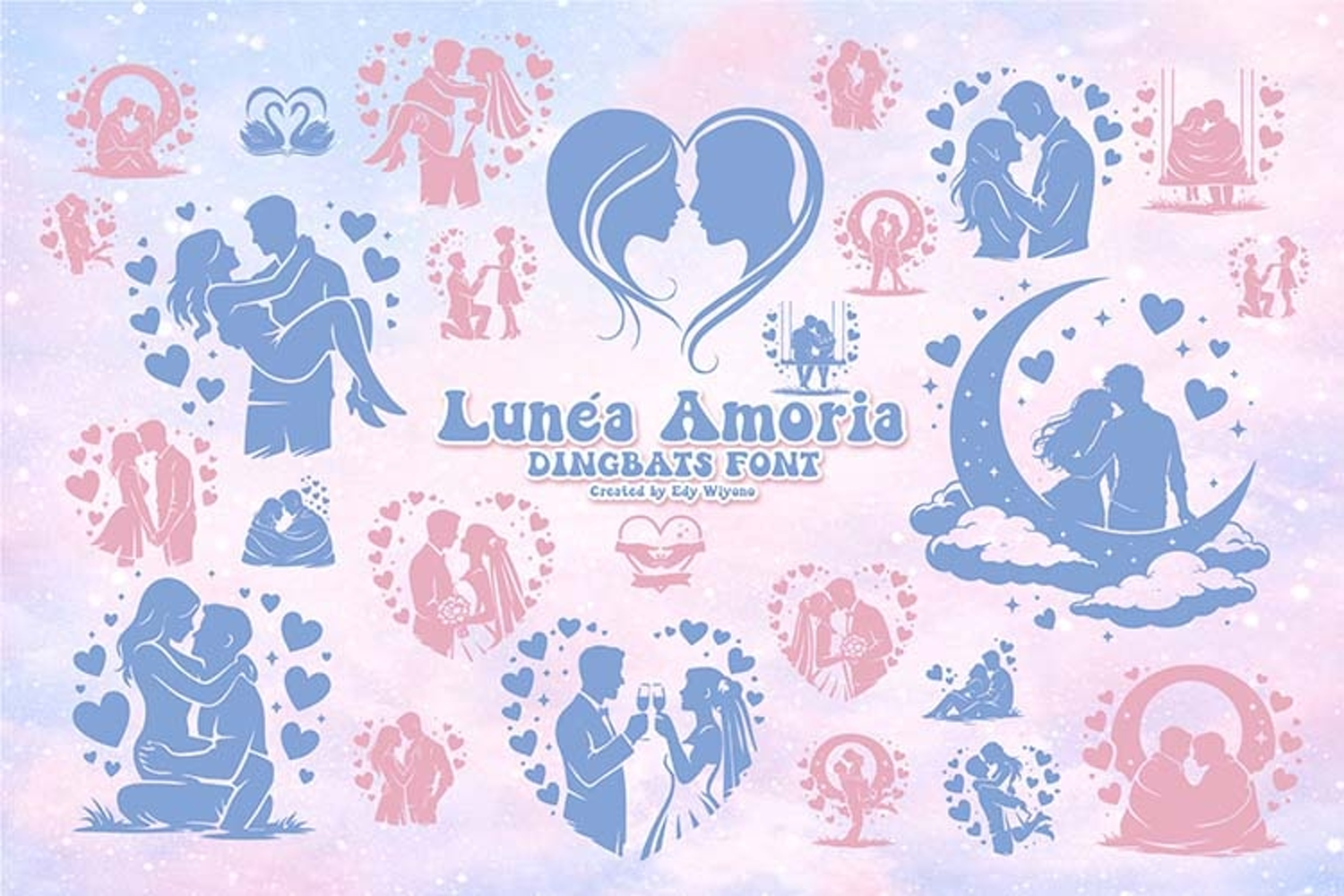
Lunéa Amoria Dingbats font
Lunea Amoria
Lunéa Amoria is an elegant romantic font with soft, artistic touches, inspired by warm and heartfelt love stories. Perfect for wedding designs, love-themed projects, and classy, charming visuals.